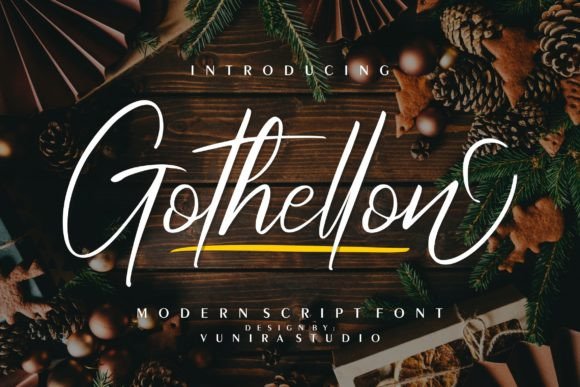
Unleash the Elegance and Sophistication of Your Designs with Gothellon Script Font
In the realm of creativity, typography holds a majestic throne, where fonts reign supreme as the architects of visual enchantment. Among these typographic wonders, Gothellon Script Font emerges as a masterpiece, a symphony of curves and strokes that harmoniously blend to evoke a sense of timeless elegance and modern allure.
Gothellon's meticulously crafted characters possess an inherent charm that transcends the boundaries of ordinary fonts. Its smooth, flowing lines dance across the screen, captivating the eyes with their grace and fluidity. Whether gracing a wedding invitation, adorning a logo, or enhancing a social media post, Gothellon elevates your designs to new heights of sophistication.
As a script font, Gothellon embodies the essence of handwritten beauty. Its characters mimic the natural strokes of a calligrapher's pen, infusing your designs with a personal touch that resonates with audiences. The font's delicate flourishes and subtle variations add a touch of artistry that sets your creations apart from the mundane.
With Gothellon at your disposal, a world of creative possibilities unfolds before you. Envision your designs transformed into works of art, imbued with a timeless charm that captivates and inspires. Whether you're a seasoned designer or just starting your creative journey, Gothellon will elevate your projects, leaving a lasting impression on all who encounter them.
Embark on a typographic odyssey with Gothellon Script Font, and witness the transformation of your designs into masterpieces of elegance and sophistication. Let your creativity soar as you explore the endless possibilities that await, knowing that Gothellon will be your faithful companion, guiding you towards typographic excellence.